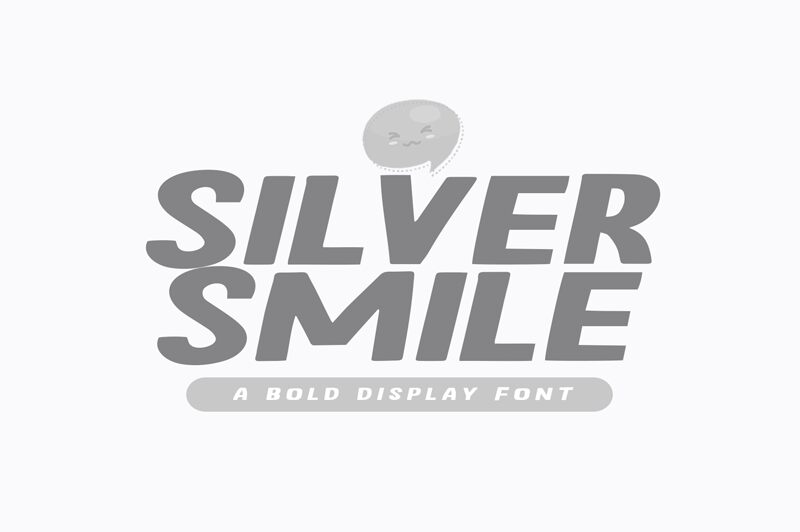
Silver Smile
Say hello to Silver Smile, the bold and beautiful display font designed by Khurasan. Its semi-expanded width gives it a unique and eye-catching look that is perfect for all your creative projects. Whether you're designing a poster, logo, or website header, this font's bold weight will make your message stand out loud and clear. Use it to add personality and flair to your designs or create a playful and whimsical vibe. From advertising campaigns to social media graphics, Silver Smile is versatile enough for any project that requires a bold and expressive typeface.